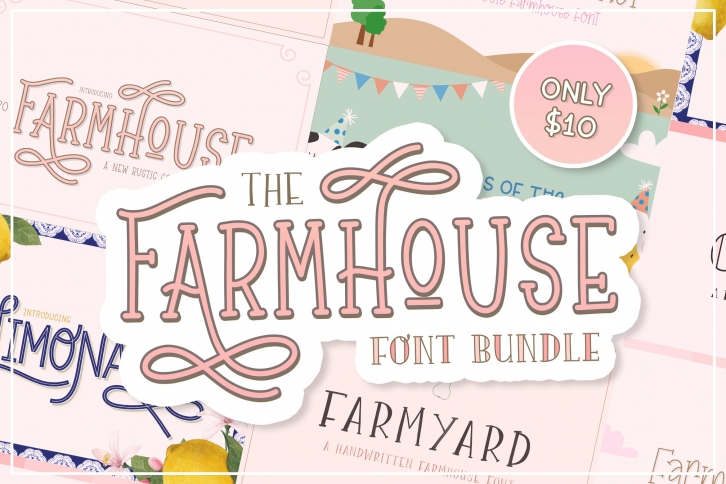
The Farmhouse Bundle is a gorgeous font that was realeased on April 2, 2021. The font can be used in many style contexts and design environments. Perfect for invitations, magazines, websites, logos, and more! It was designed by Salt and Pepper Designs and the file size is 16.89 MB. Thanks for checking out this font!